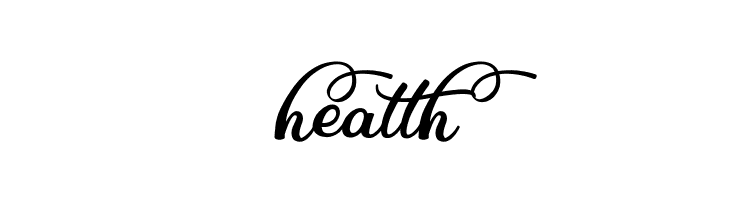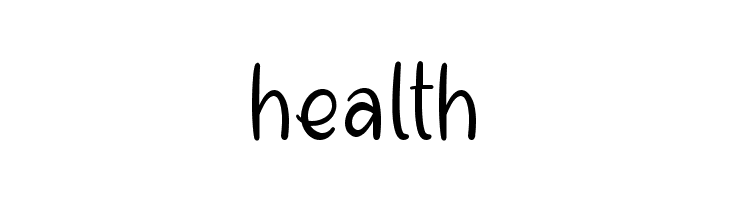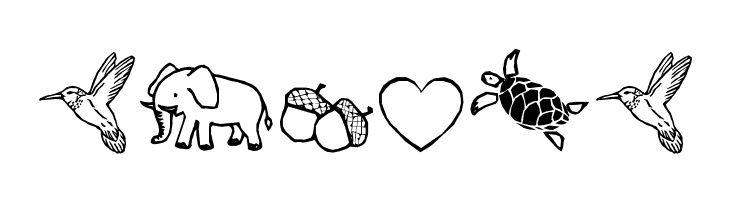
• Charming Love
( Fonts by Adzriel Radeya Alfarizi )
A playful and rounded font with a modern, whimsical style.
• Charming Prince
An elegant and ornate script font with intricate curves and decorative flourishes.
• Charming Prince
• Charming Regular
A playful, handwritten font with smooth, flowing strokes and a casual vibe.
• Charming Sixties
A bold, playful font with a retro 1960s vibe and rounded, whimsical characters.
• Charming Smile DEMO Regular
A playful, bold font with bubbly, rounded characters perfect for fun designs.
• Charming Winter
Casual handwritten font with a friendly look.
• CharmingStrangulation
An elegant script font with flowing, intricate loops and swirls, exuding sophistication.
• CharmingSymbols
• Charmington
An elegant script font with flowing lines and a classic, sophisticated style.